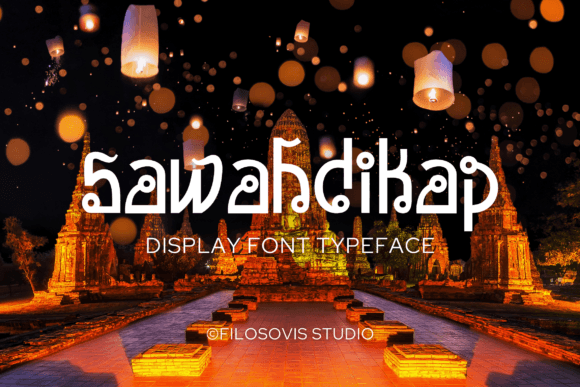
Sawahdikap Font: A Versatile Semi- Modular Sans-Serif Typeface
The Sawahdikap font is a unique and innovative typeface that has been gaining popularity among designers and typographers. Inspired by industrial signage, this semi-modular sans-serif font is designed to be adaptable across various media formats, making it suitable for a wide range of applications. In this article, we’ll explore the features, benefits, and uses of the Sawahdikap font, and why it’s becoming a go-to choice for designers.
Key Features of Sawahdikap Font
- Semi-modular design: Sawahdikap’s semi-modular design gives it a unique and distinctive look. The font’s modular elements are inspired by industrial signage, making it perfect for projects that require a bold and modern aesthetic.
- Versatility: Sawahdikap is designed to be adaptable across various media formats, including print, digital, and web. This versatility makes it suitable for a wide range of applications, from branding and advertising to packaging and signage.
- Sans-serif: As a sans-serif font, Sawahdikap is clean, modern, and highly legible. This makes it perfect for projects that require a clear and concise visual message.
- Industrial inspiration: Sawahdikap’s industrial inspiration gives it a rugged and durable feel. This makes it perfect for projects that require a bold and edgy aesthetic.
Benefits of Using Sawahdikap Font
So, why should you use Sawahdikap font in your projects? Here are just a few benefits:
- Unique aesthetic: Sawahdikap’s semi-modular design and industrial inspiration give it a unique and distinctive look that sets it apart from other fonts.
- High legibility: Sawahdikap’s sans-serif design and clean lines make it highly legible, even at small sizes.
- Versatility: Sawahdikap’s adaptability across various media formats makes it suitable for a wide range of applications.
- Durability: Sawahdikap’s industrial inspiration gives it a rugged and durable feel that makes it perfect for projects that require a bold and edgy aesthetic.
Applications of Sawahdikap Font
Sawahdikap font is suitable for a wide range of applications, including:
- Branding and advertising: Sawahdikap’s unique aesthetic and high legibility make it perfect for branding and advertising projects.
- Packaging: Sawahdikap’s industrial inspiration and durability make it perfect for packaging projects that require a bold and edgy aesthetic.
- Signage: Sawahdikap’s semi-modular design and industrial inspiration make it perfect for signage projects that require a bold and modern aesthetic.
- Digital and web: Sawahdikap’s adaptability across various media formats makes it suitable for digital and web projects, including websites, social media, and mobile apps.
Comparison with Other Fonts
So, how does Sawahdikap font compare to other fonts in the market? Here are a few comparisons:
- Montserrat: While Montserrat is a popular sans-serif font, Sawahdikap’s semi-modular design and industrial inspiration give it a unique and distinctive look.
- Helvetica: Helvetica is a classic sans-serif font, but Sawahdikap’s adaptability across various media formats and high legibility make it a more versatile choice.
- Arial: Arial is a clean and modern sans-serif font, but Sawahdikap’s industrial inspiration and durability make it a more durable and rugged choice.
Tips and Tricks for Using Sawahdikap Font
Here are a few tips and tricks for using Sawahdikap font in your projects:
- Use it boldly: Sawahdikap font is designed to be bold and eye-catching, so don’t be afraid to use it in large sizes.
- Experiment with colors: Sawahdikap font looks great in a variety of colors, so experiment with different color schemes to find the one that works best for your project.
- Mix it with other fonts: Sawahdikap font pairs well with other fonts, so don’t be afraid to mix it with other typefaces to create visual interest.
Technical Specifications of Sawahdikap Font
Here are the technical specifications of Sawahdikap font:
- Font family: Sawahdikap
- Font style: Semi-modular sans-serif
- Font size: Available in various font sizes
Sawahdikap font is a versatile and unique semi-modular sans-serif typeface that is inspired by industrial signage. Its adaptability across various media formats, high legibility, and durability make it suitable for a wide range of applications, from branding and advertising to packaging and signage. Whether you’re a designer, typographer, or simply a font enthusiast, Sawahdikap font is definitely worth checking out.